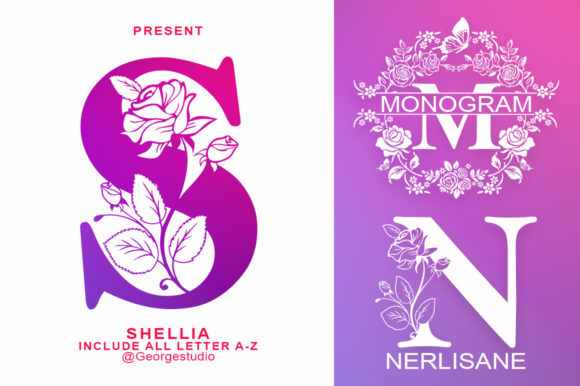
Looking for a font that's both delicate and stunning? Look no further than Shellia Monogram Font! Created by George Studio, this dainty and beautiful decorative font is sure to catch your eye.
Shellia Monogram's ravishing style is perfect for those looking to add a touch of elegance to their designs. Whether you're creating invitations, greeting cards, or simply adding a personalized touch to your website, this font will help you do it with style.
With its graceful curves and intricate details, Shellia Monogram Font is the perfect choice for anyone looking to make a statement. Its delicate lines and sophisticated design will help elevate your work and give it a unique flair that's sure to impress.
So why wait? Fall for the charm of Shellia Monogram Font and let it inspire you to create truly gorgeous designs. With its captivating style and endless possibilities, this font is a must-have for anyone looking to make their mark in the world of design.